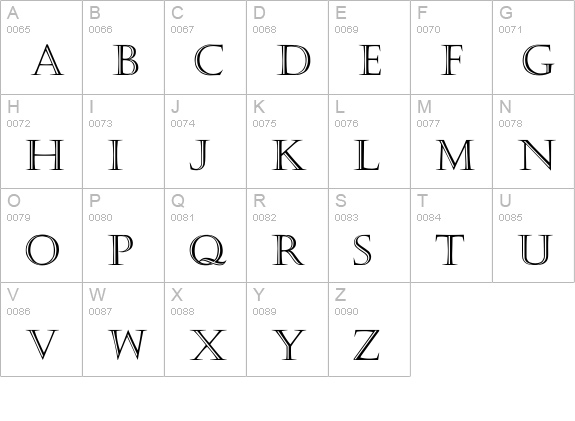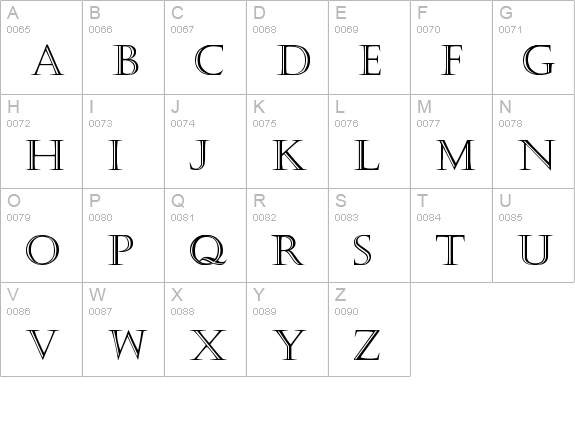
Kaste Font Details
Introducing Kaste, a stunning font that captures the essence of modernity and elegance. With its sleek and sophisticated design, Kaste is the perfect choice for those seeking to make a bold statement with their typography. This versatile font is suitable for a wide range of design projects, from logos and branding to editorial layouts and website headers. Kaste stands out with its clean lines, balanced proportions, and unique letterforms. Its contemporary style adds a touch of sophistication to any design, making it a favorite amongst both professional designers and enthusiasts alike. Whether you're creating a chic fashion magazine, a high-end luxury brand, or a minimalist website, Kaste will elevate your design to new heights. One of the best features of Kaste is that it is absolutely free. Yes, you read that right! This incredible font is freely available to download at FontsMarket.com. You can effortlessly enhance your projects without breaking the bank. With Kaste, you can access top-quality typography without the hefty price tag. Downloading Kaste is a breeze. Simply head over to FontsMarket.com, find the Kaste font page, and click the download button. Within seconds, you'll have this impressive font ready to use in your next design masterpiece. The user-friendly interface of FontsMarket.com ensures a seamless and hassle-free experience, allowing you to focus on unleashing your creativity. Kaste is a font that will make your designs shine. Its versatility, elegance, and the fact that it is freely available to download at FontsMarket.com make it a must-have for every designer's toolkit. Don't miss out on the opportunity to elevate your projects with this exceptional font. Download Kaste today and let your creativity soar to new heights.